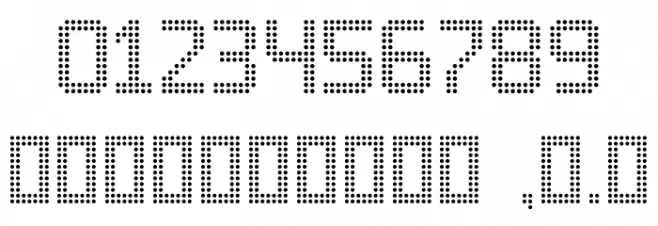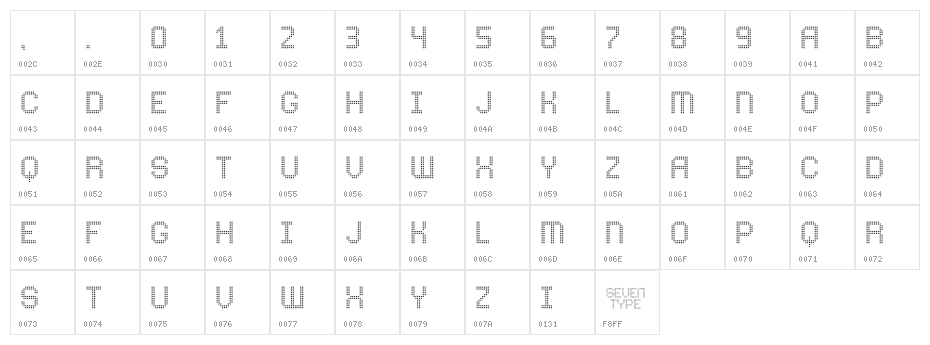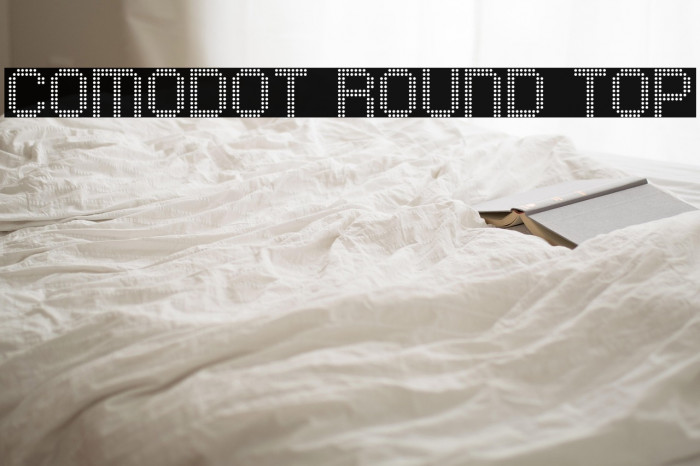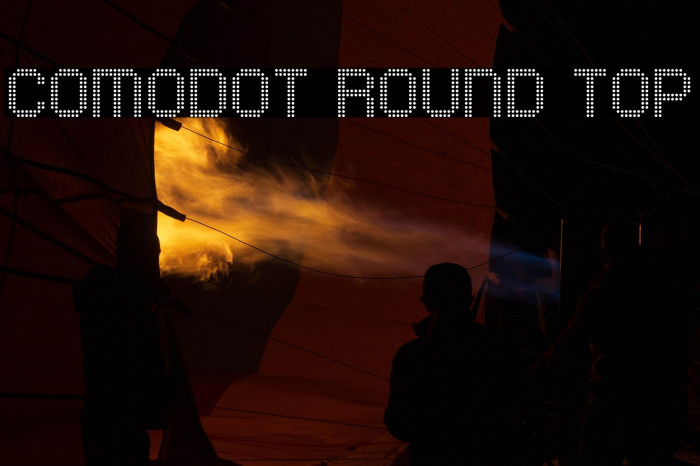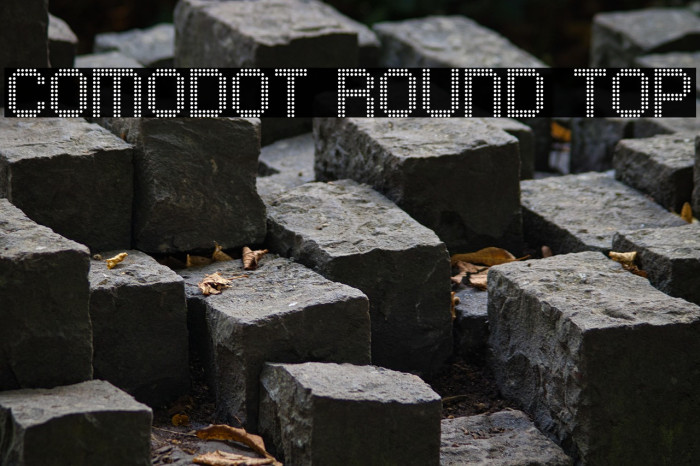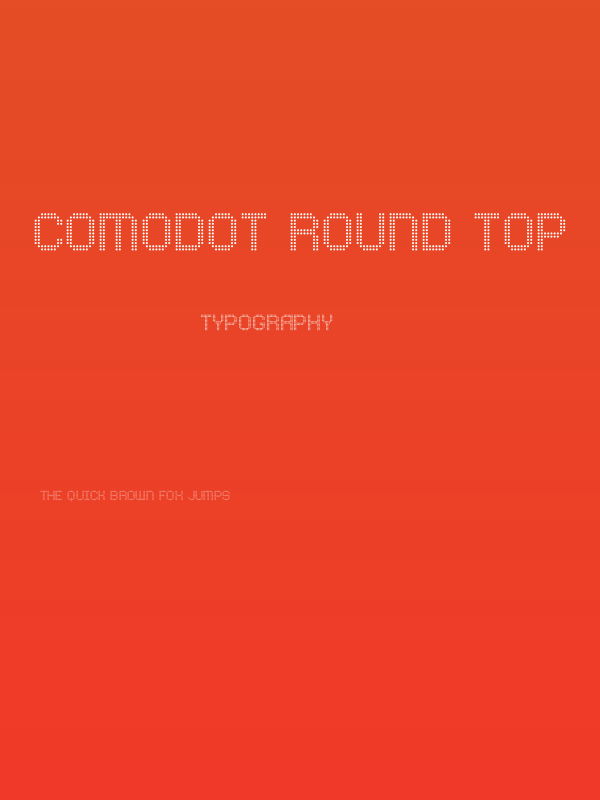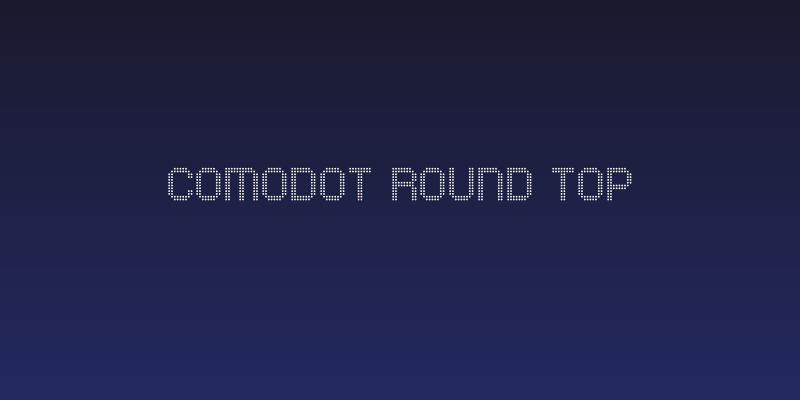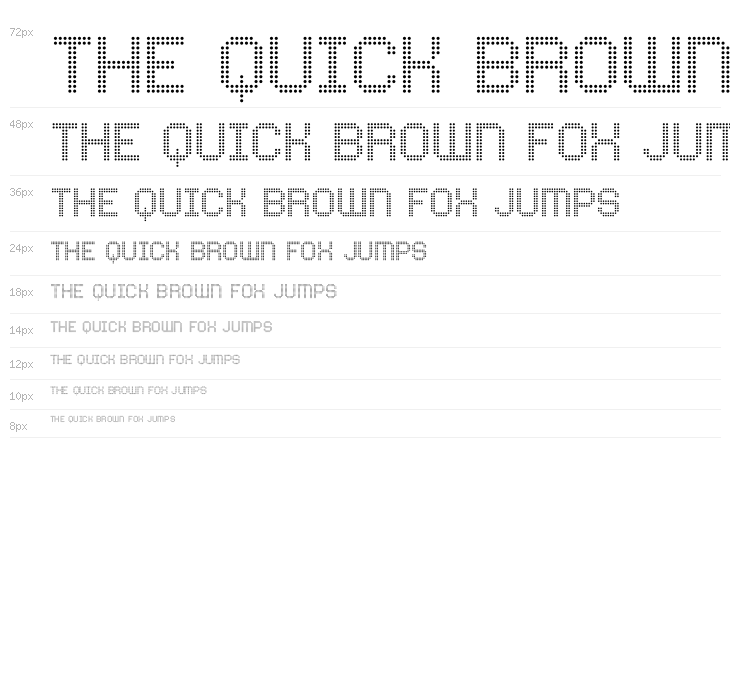
Comodot Round Top Font
Comodot Round Top Description
This font features a unique dot matrix style, where each character is composed of small, evenly spaced dots. The design is geometric and structured, providing a modern and digital aesthetic. The uppercase and lowercase letters maintain a consistent height and width, creating a uniform appearance. Numbers and special characters follow the same dot pattern, ensuring cohesion across all elements. This font is ideal for projects that require a tech-savvy or futuristic look, such as digital displays, tech branding, or modern art installations.
| Proposed Projects | Digital displays, tech branding, modern art installations, futuristic designs. |